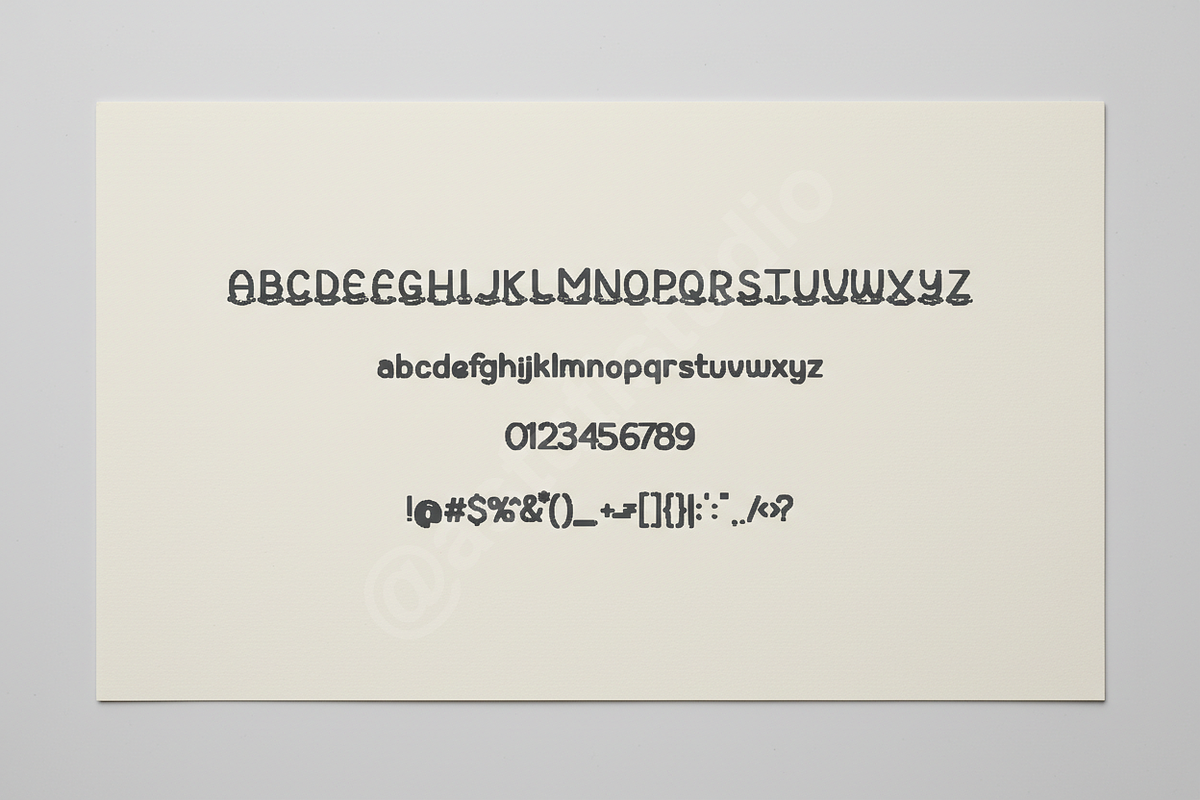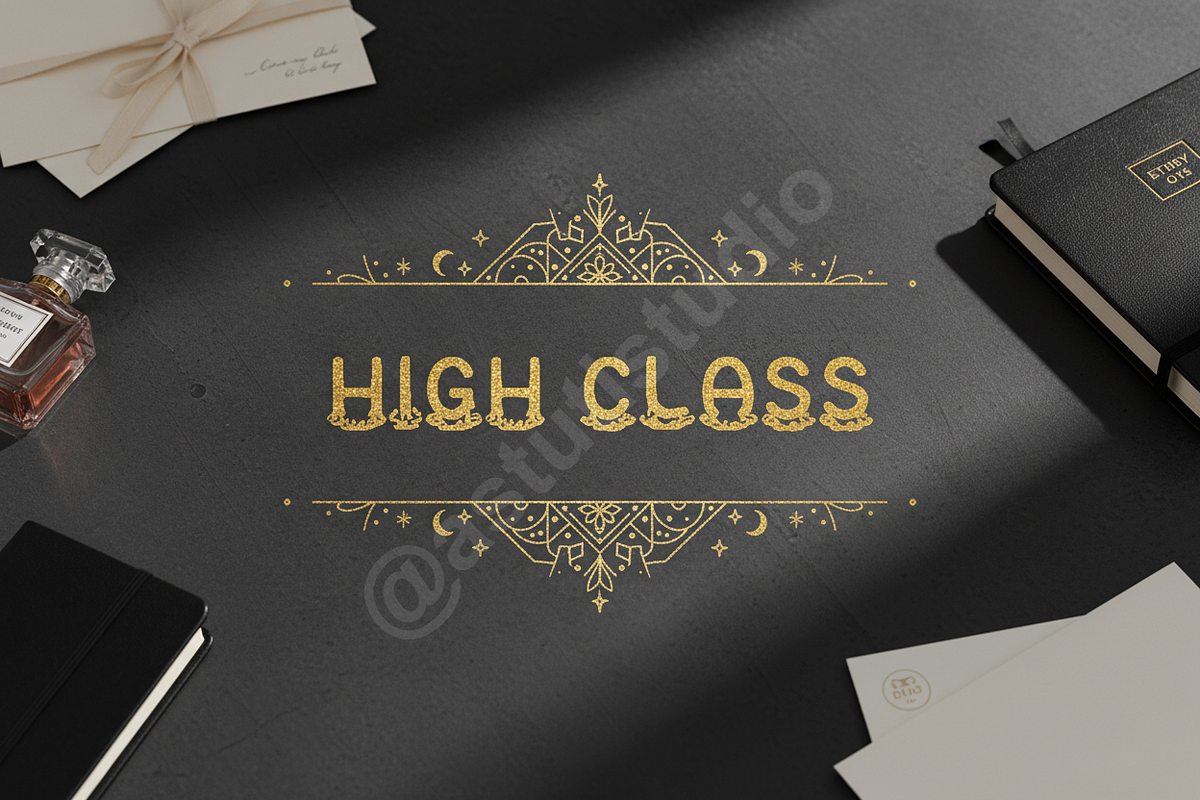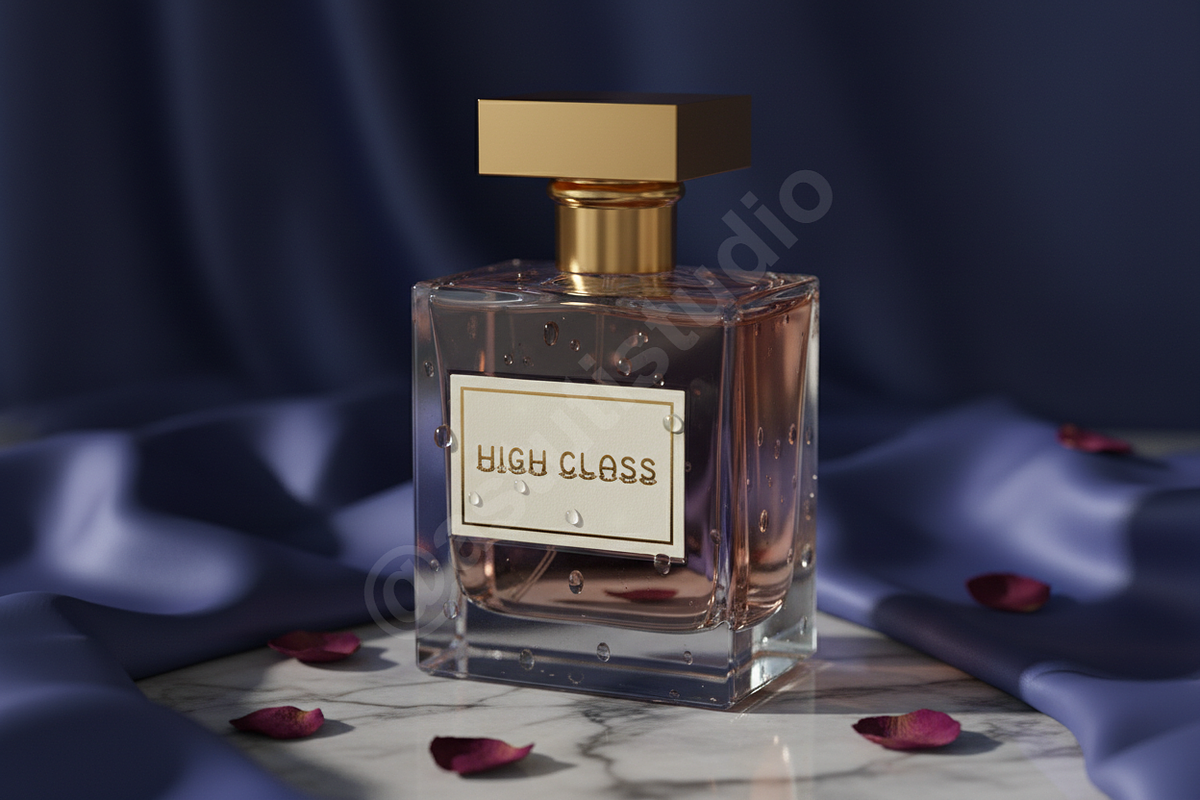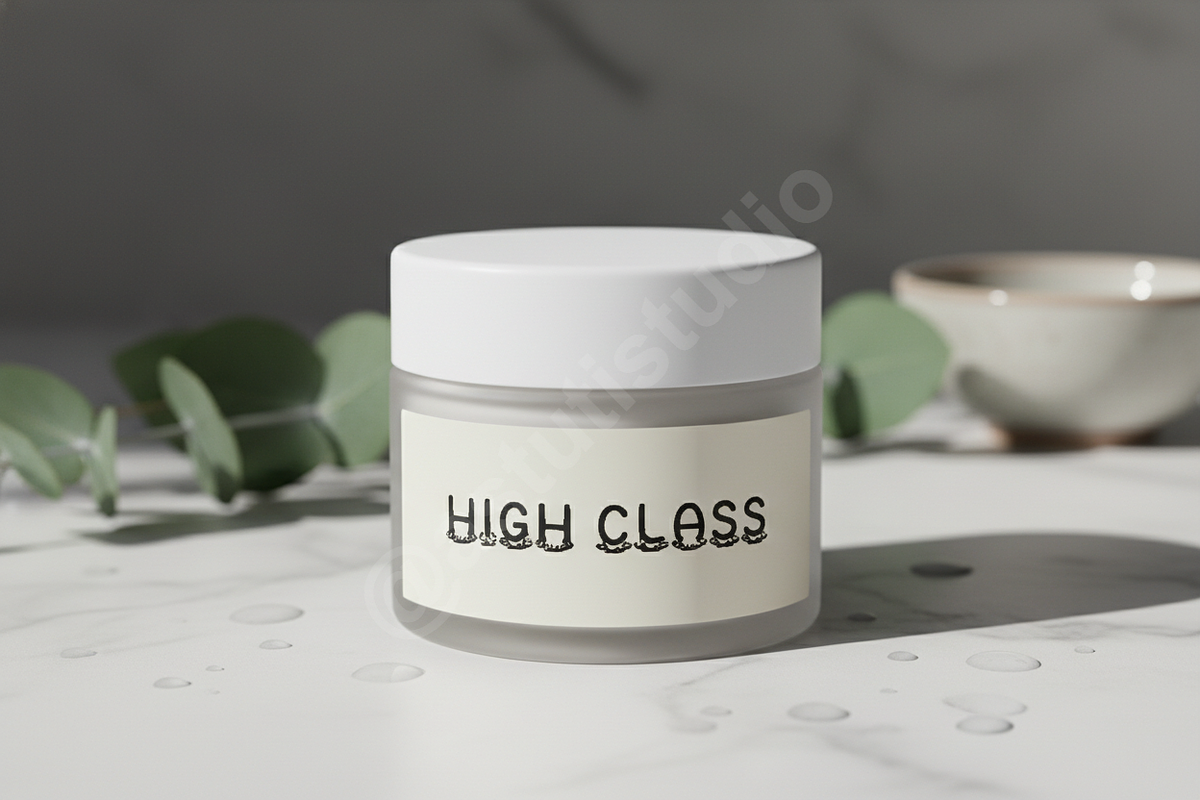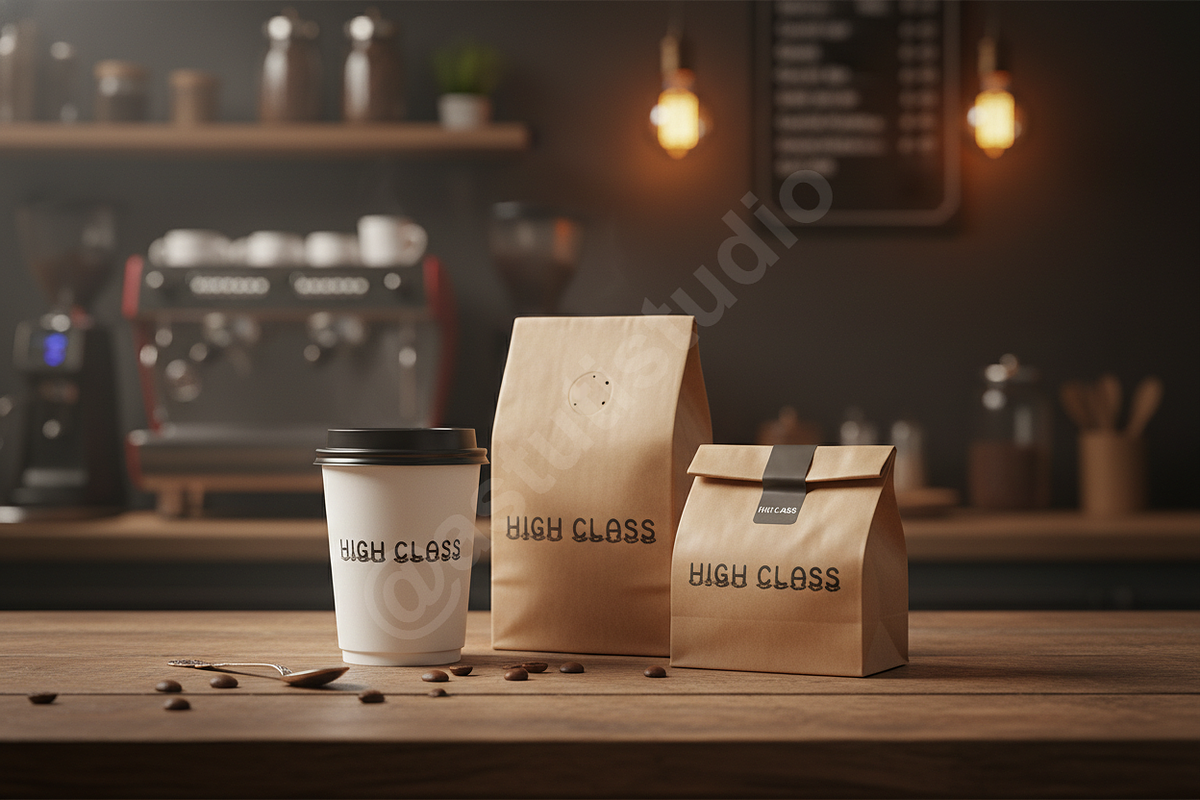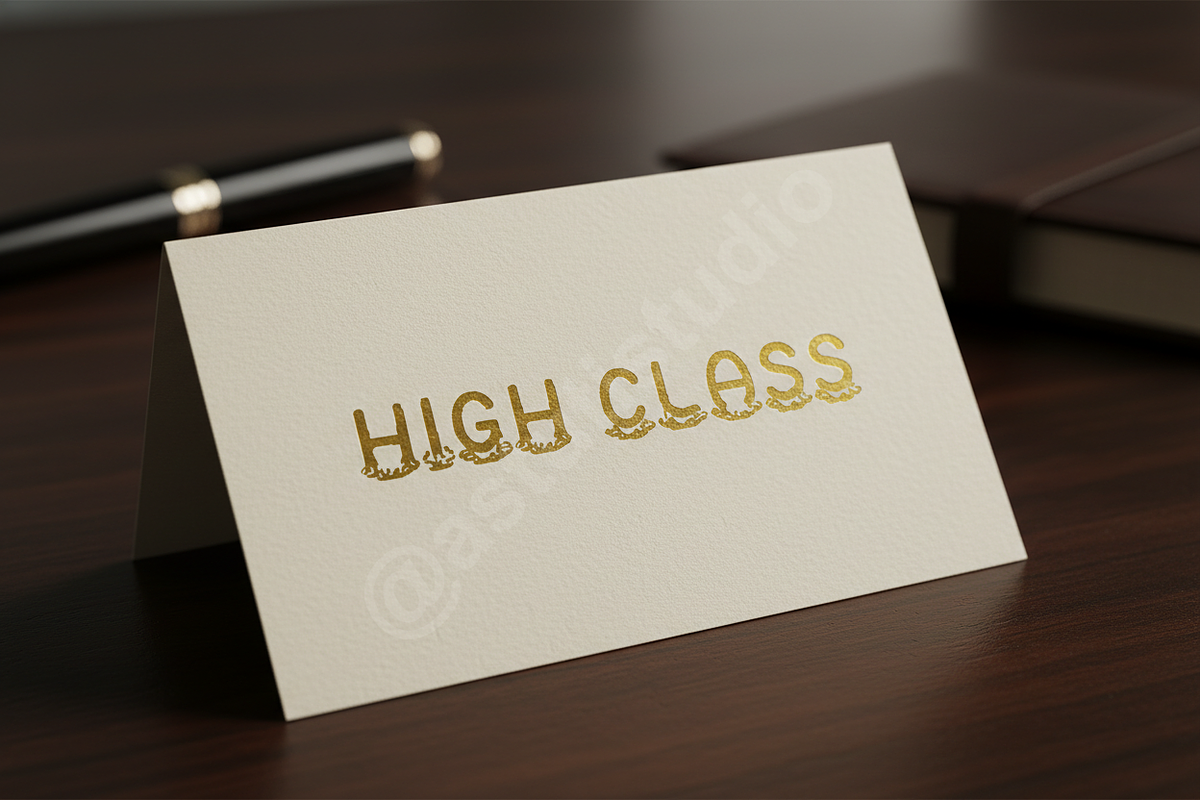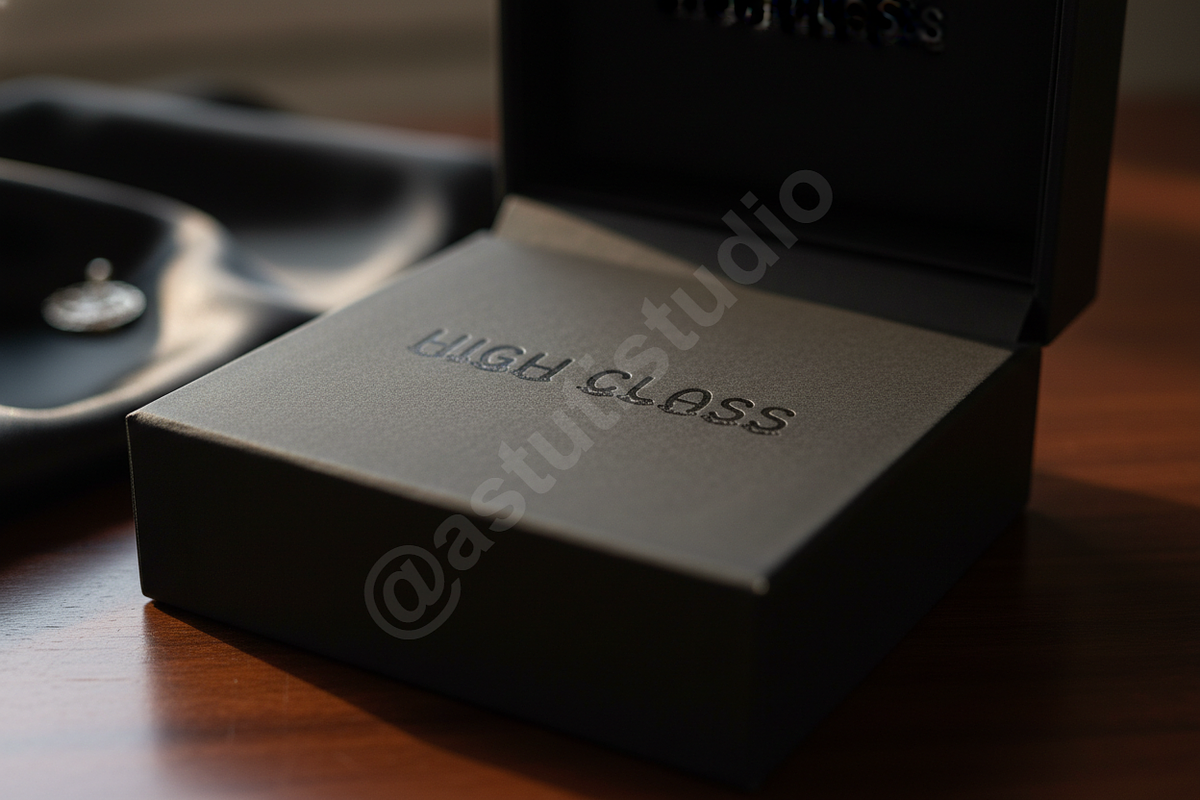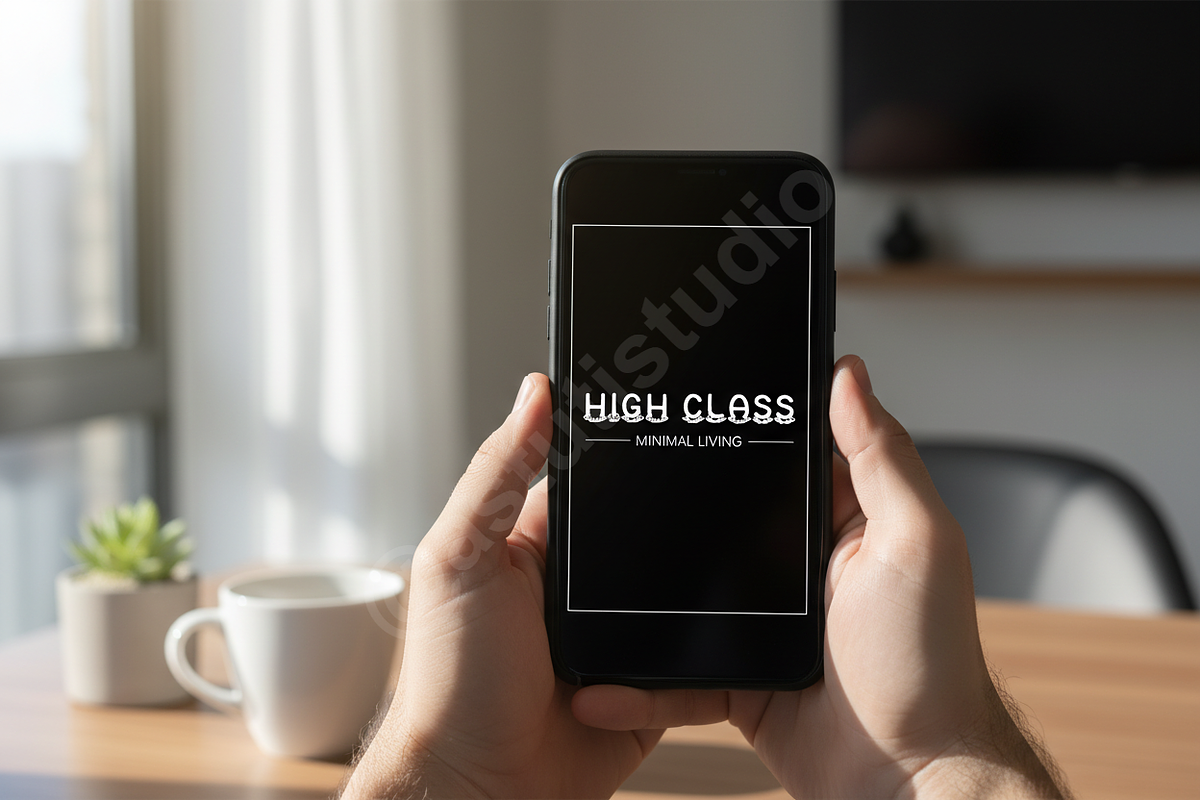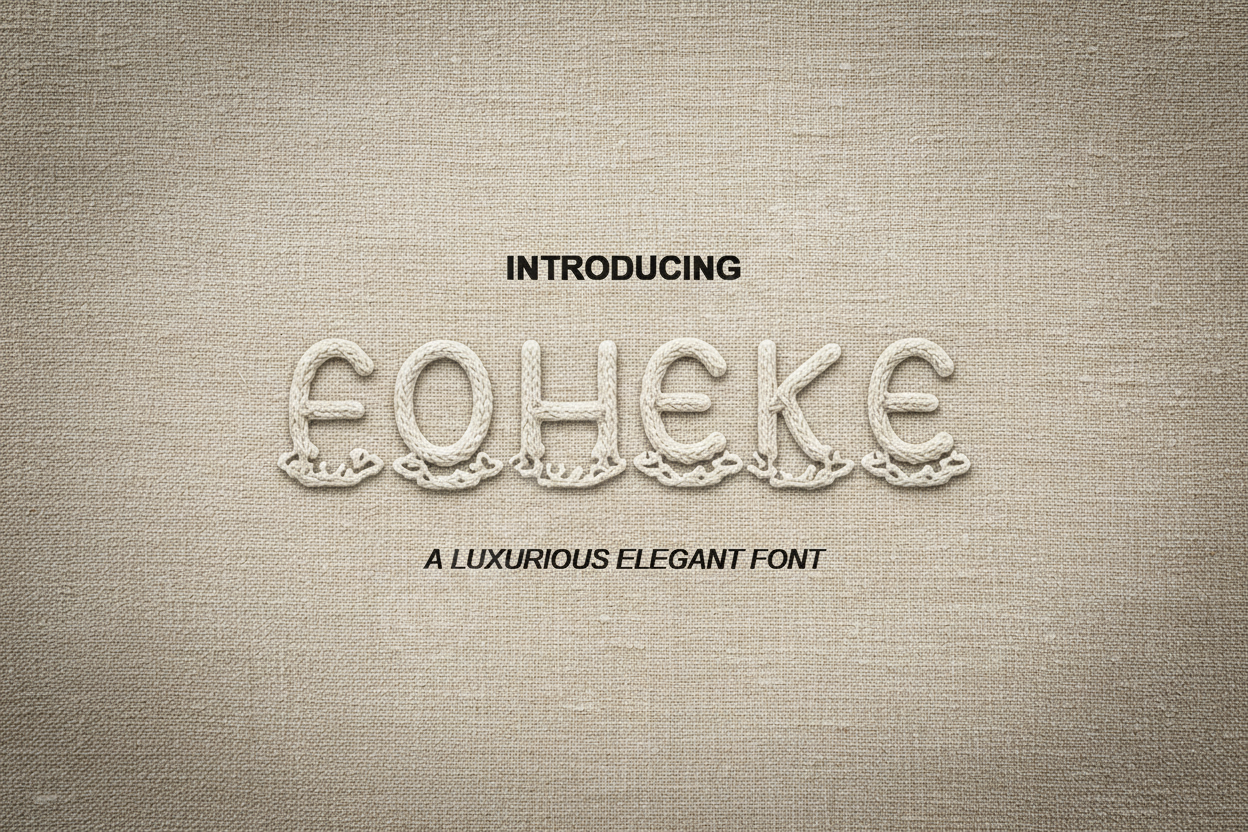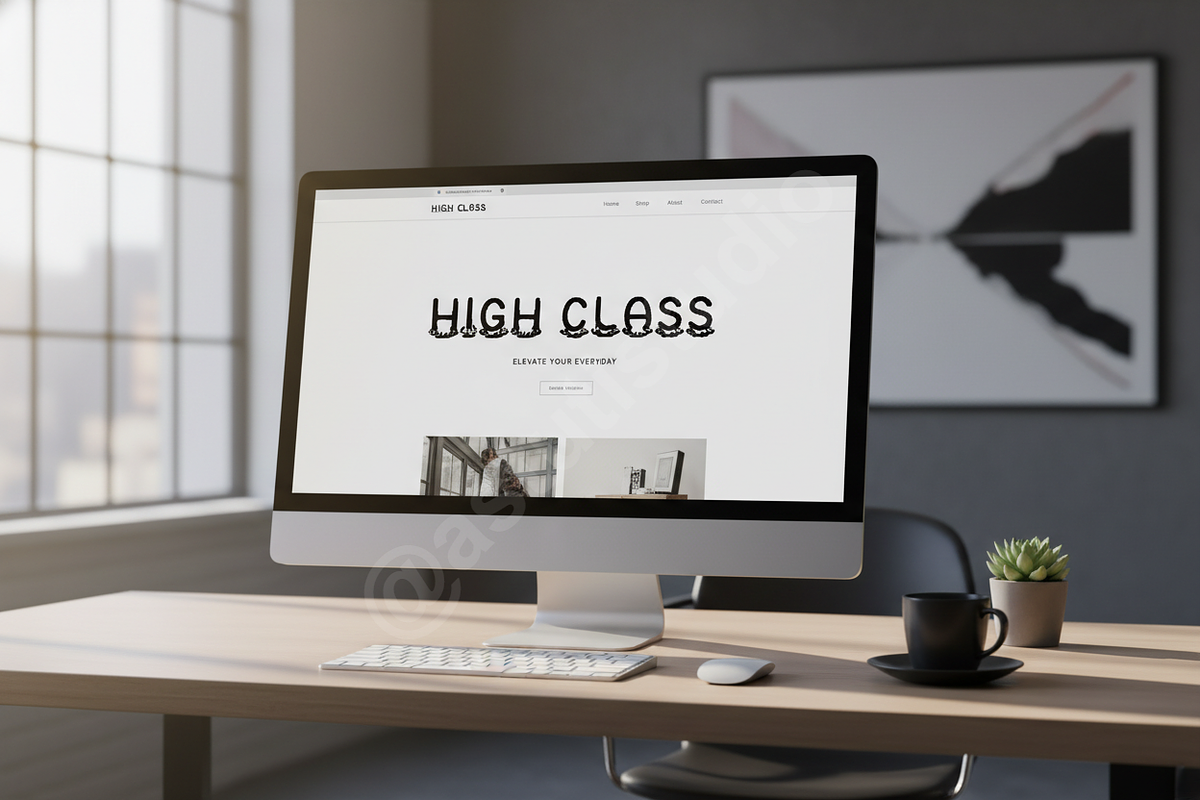
Foheke - Elegant Serif Font for Luxu
Introducing Foheke, an exquisitely crafted serif font designed for the discerning creator. Foheke embodies a timeless elegance and sophisticated charm, making it the quintessential choice for projects demanding a touch of luxury. Perfect for high-end branding, captivating editorial layouts, refined packaging, and engaging social media content, Foheke ensures your designs leave a lasting impression of professionalism and class.
- Luxurious Serif Design: A harmonious balance of classic elegance and modern refinement.
- Extensive Ligatures & Alternates: Enhance your typography with a rich set of stylistic options for unique character combinations.
- Multilingual Support: Reach a global audience with comprehensive language support.
- Smooth Curves & Precise Details: Meticulously designed letterforms for impeccable readability and visual appeal at any size.
- Versatile Application: Ideal for logos, headlines, magazine spreads, advertisements, wedding invitations, and more.